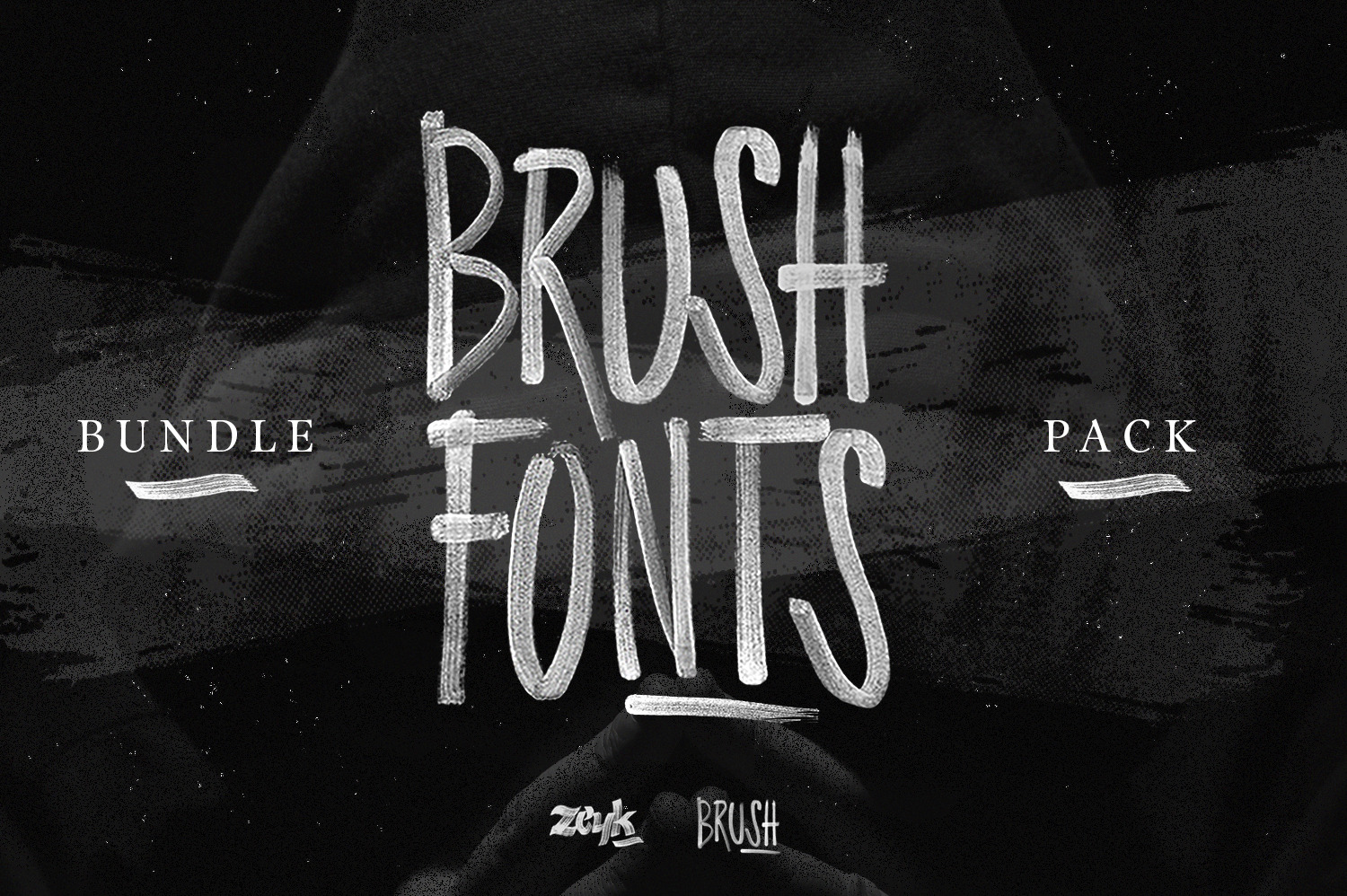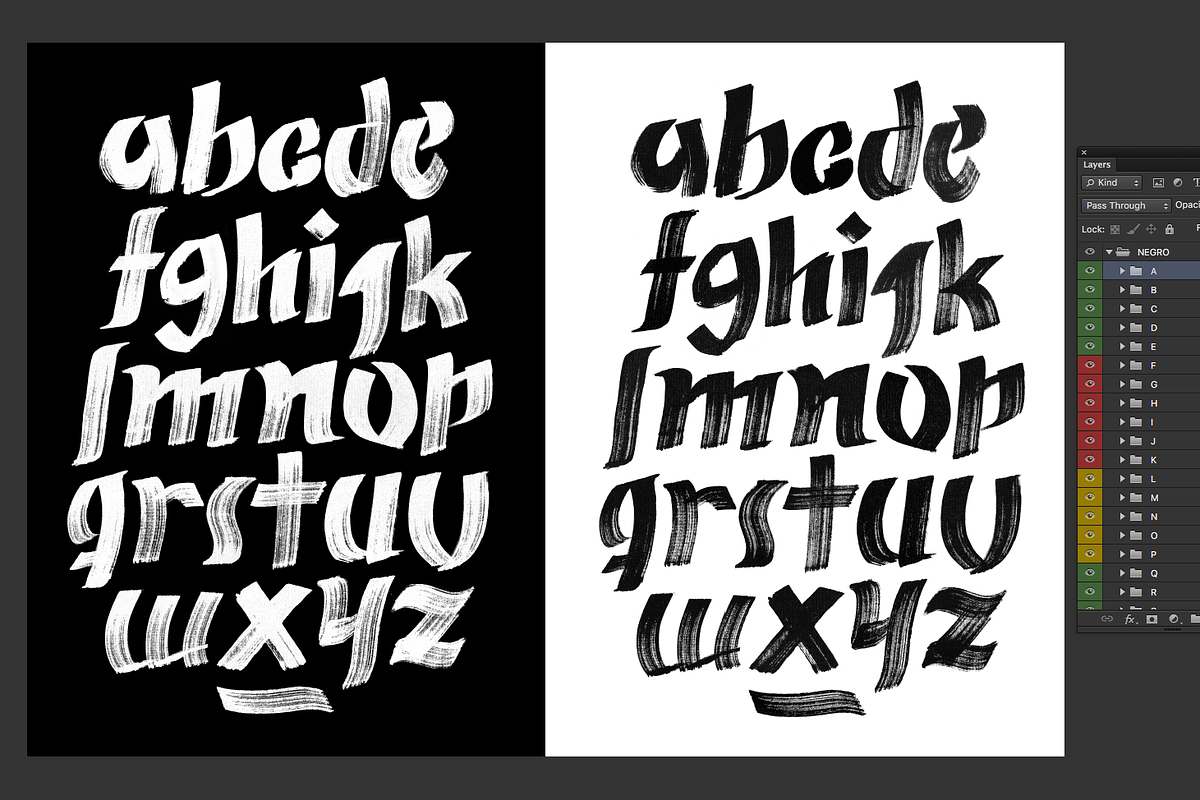
Brush Fonts Pack / Bundle
2 FONT IN 1 BUNDLE
This package is amazing, very suitable for cards, branding materials, quotes, posters, and more!
Bruship and Zeyk included font in PSD file with high quality brush texture.
Zeyk included font in Black and White files.